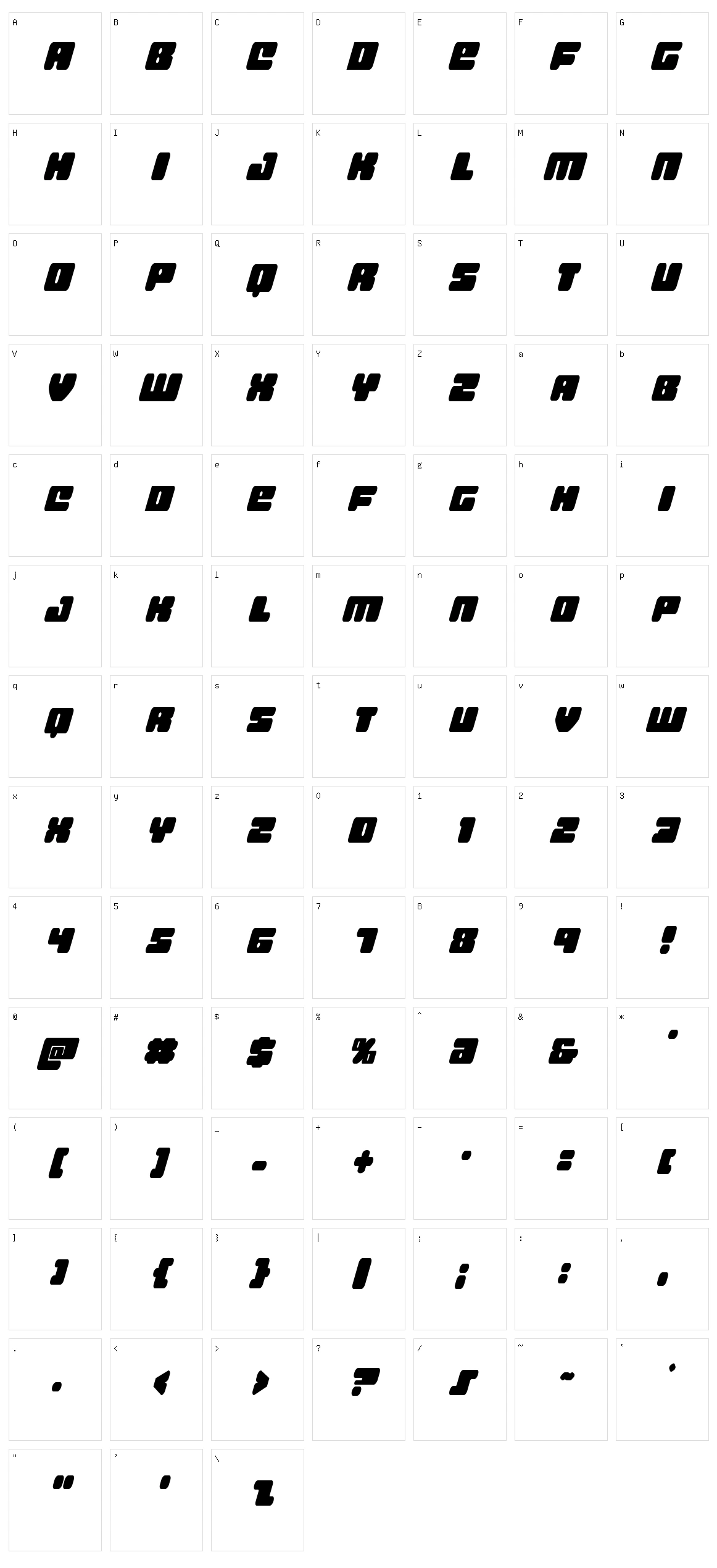
This font comes with the following 19 versions: Regular, Italic, Condensed, Condensed Italic, Expanded, Expanded Italic, Outline, Outline Italic, 3D, 3D Italic, Gradient, Gradient Italic, Halftone, Halftone Italic, Bold Outline, Bold Outline Italic, Semi-Italic, Super-Italic and Leftalic.